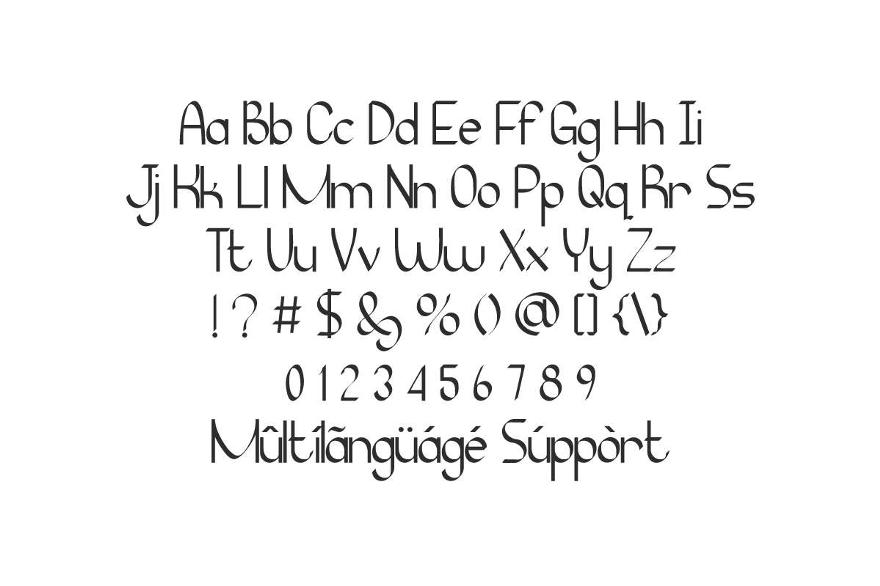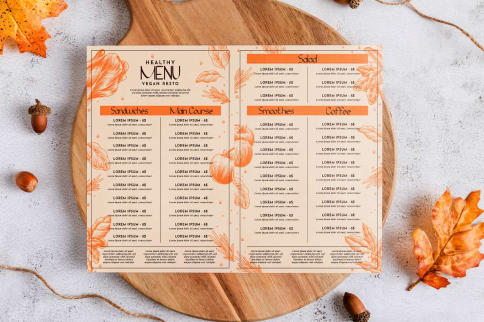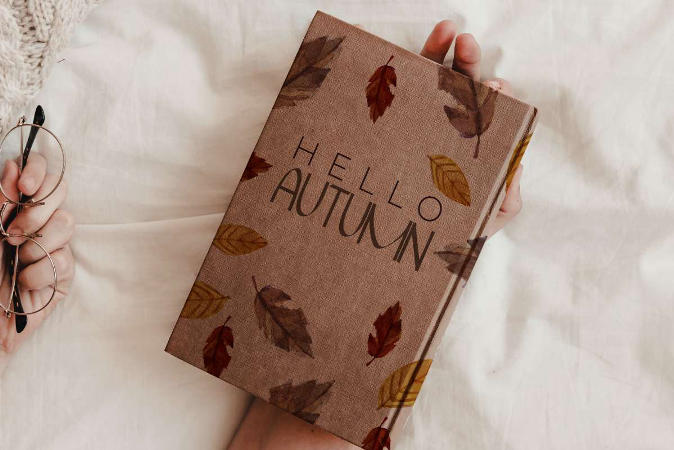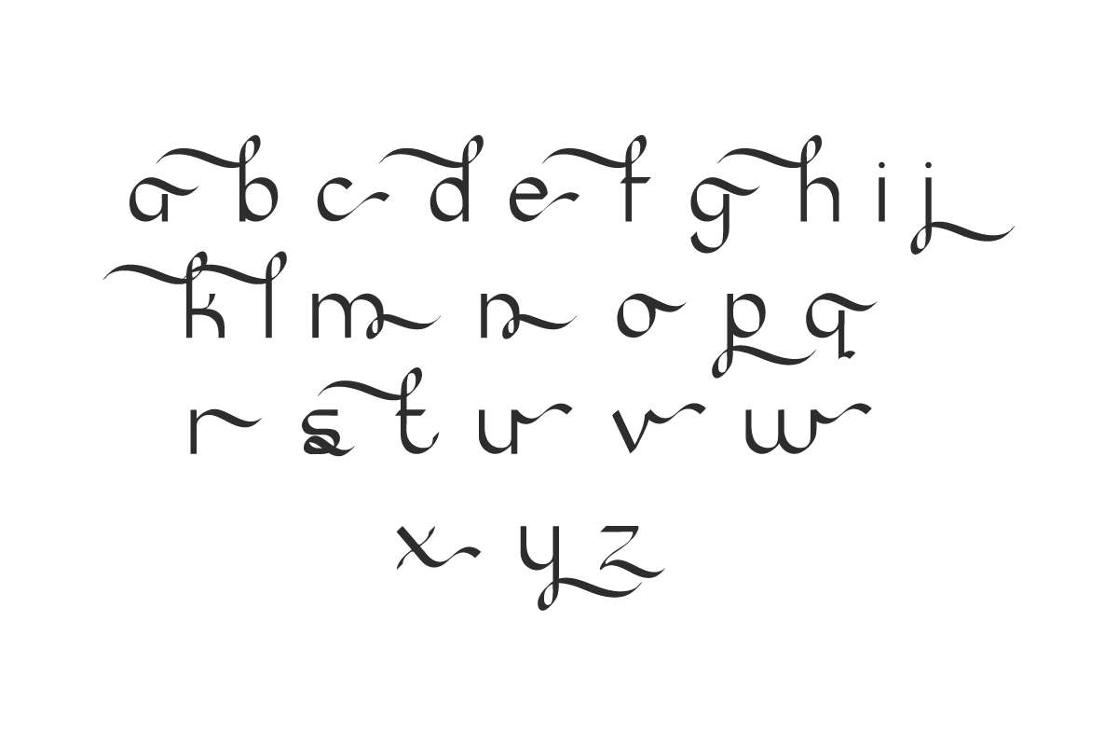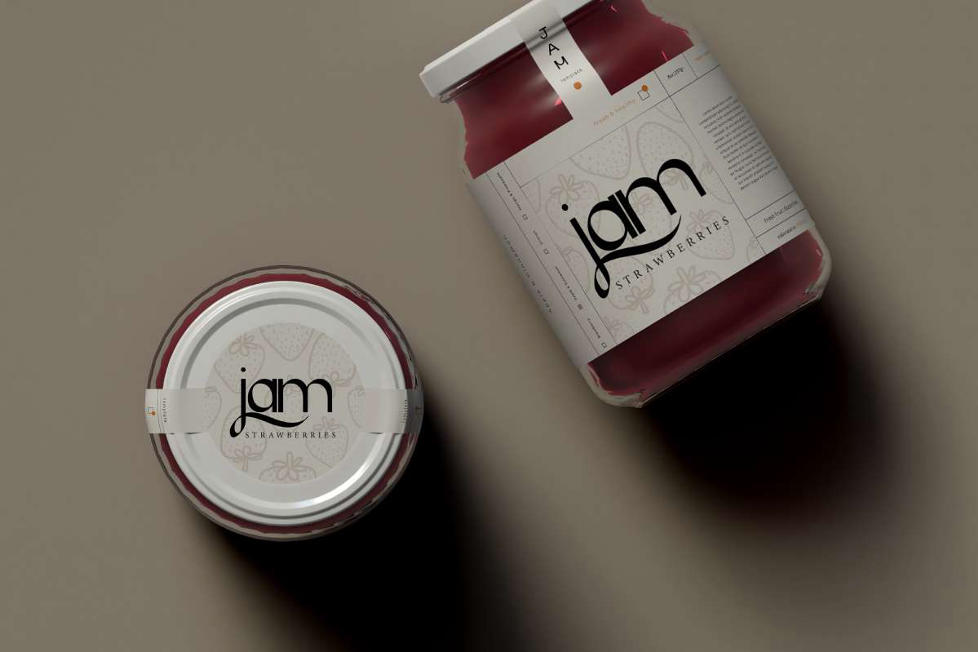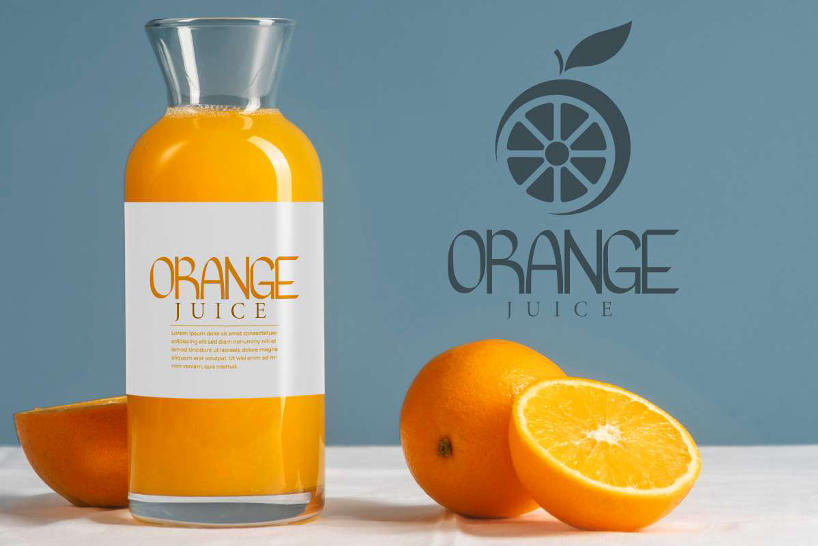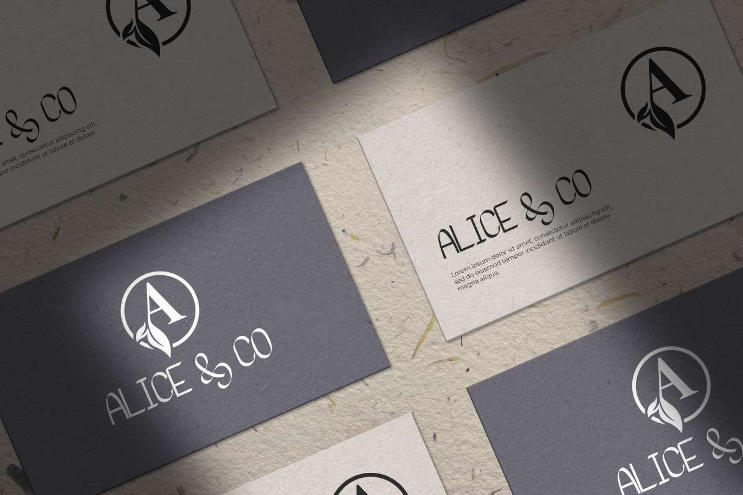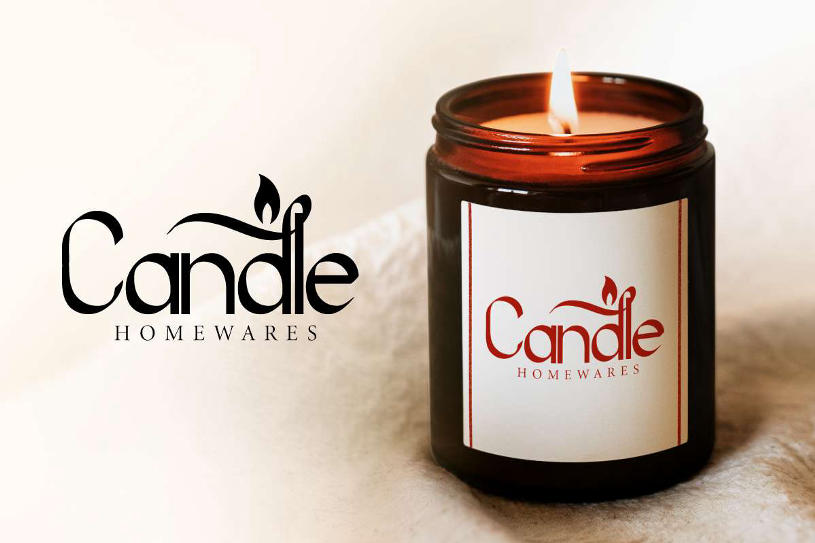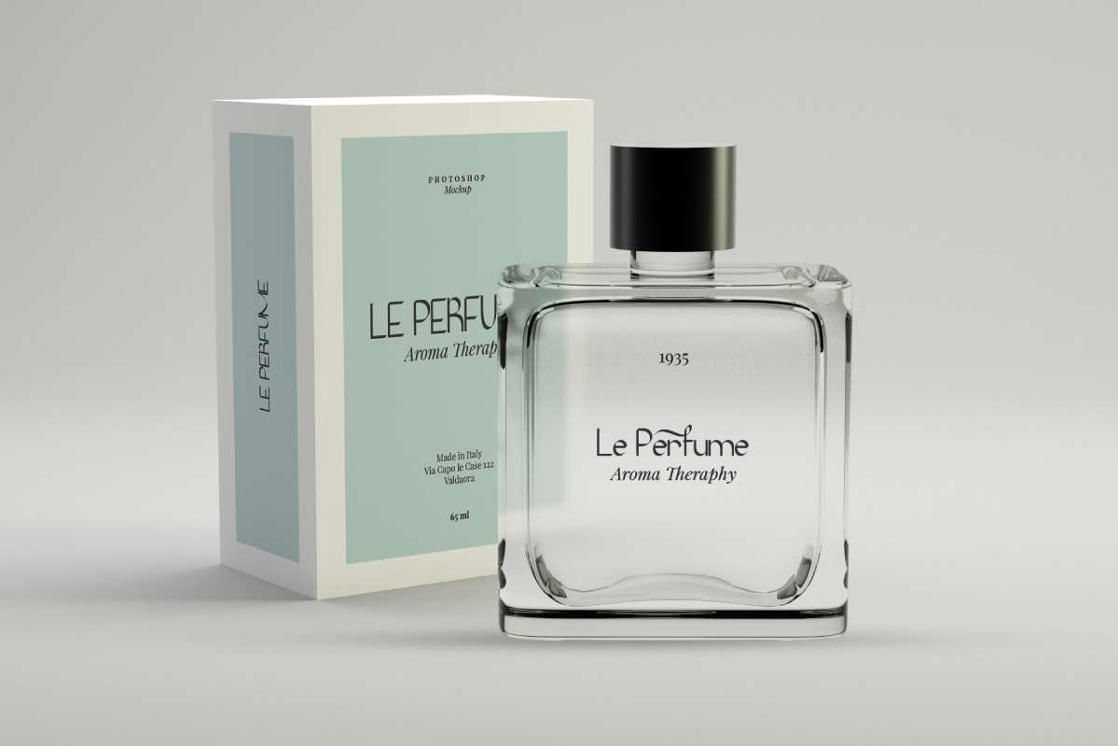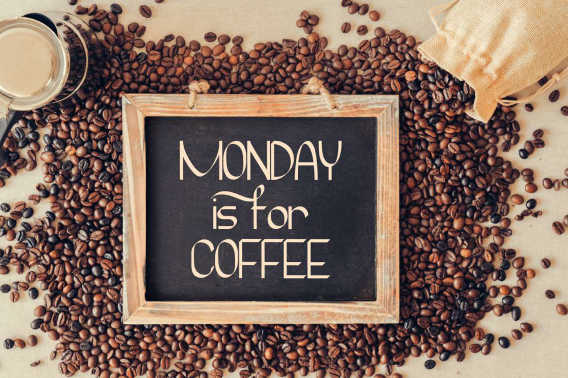
Discover the Charm of Misty Wonders – The Perfect Handwriting Font for Your Next Design
Looking for a beautiful, natural handwriting font to elevate your design projects? Misty Wonders Handwriting Font is your perfect match. With soft curves, elegant strokes, and a touch of modern calligraphy, this font captures the essence of handwritten beauty.
Misty Wonders Fontis a beautiful handwriting font, great for wedding, branding tittle, book, social media post etc. This font is crafted carefully in every its single letter so we can make sure it has special looking, exclusive and This one should make your designs instantly standout and stunning !
Misty Wonders Handwriting Font includes full set of Characters, Numerals and Punctuation. Also it contains ligatures to make it flowless that add more aesthetic fonts to perfect your extraordinary project. This font also contain some special decorative character alternatives to make it more unique and useful. The font will be great for musical, school, teacher, student, kindergarten, drama, movie etc
This font is perfect for many projects including : Flyer, headings, logos, branding design, quotes, products, cards, stationery, invitations and more! Be a unique in a minute and start creating today!